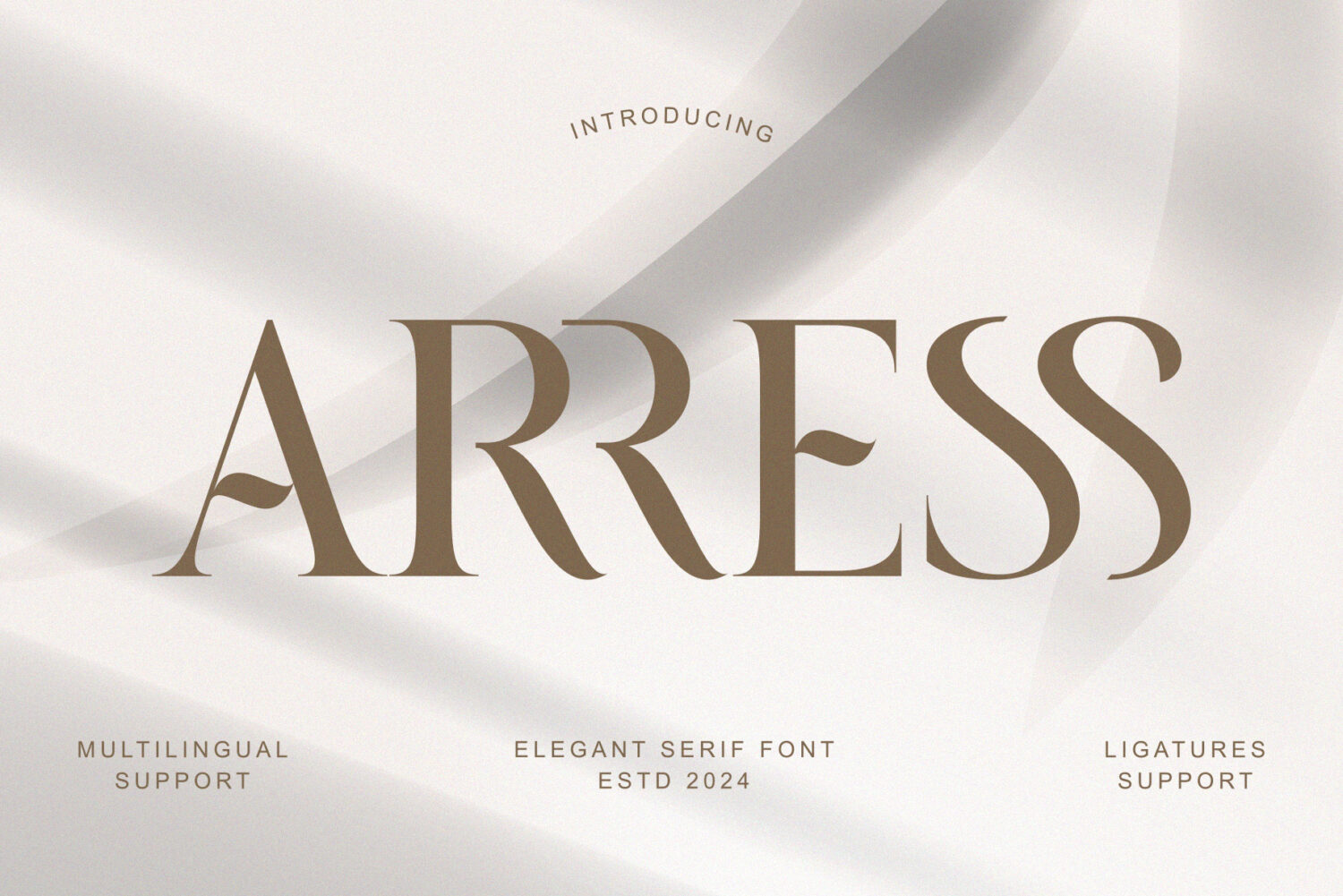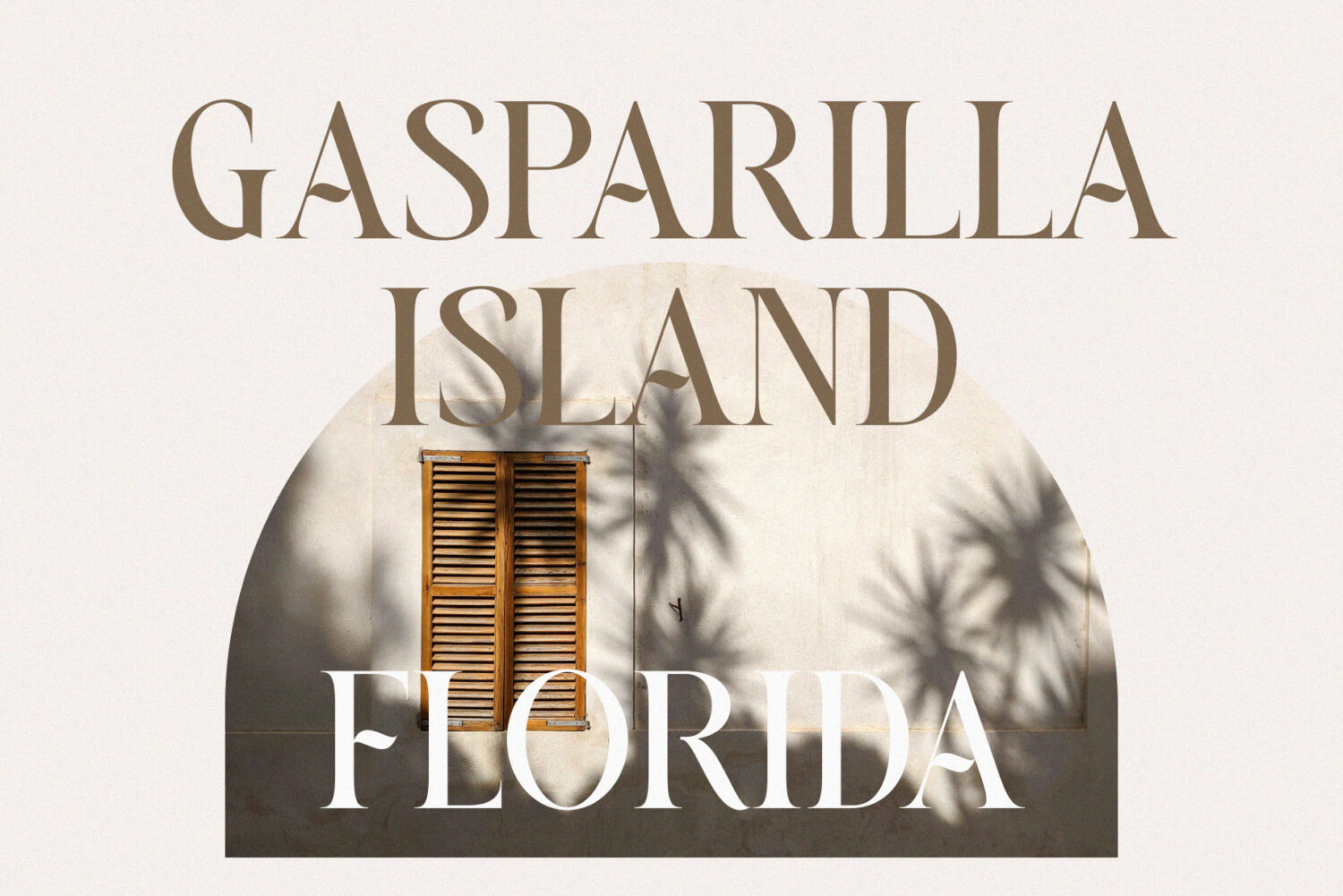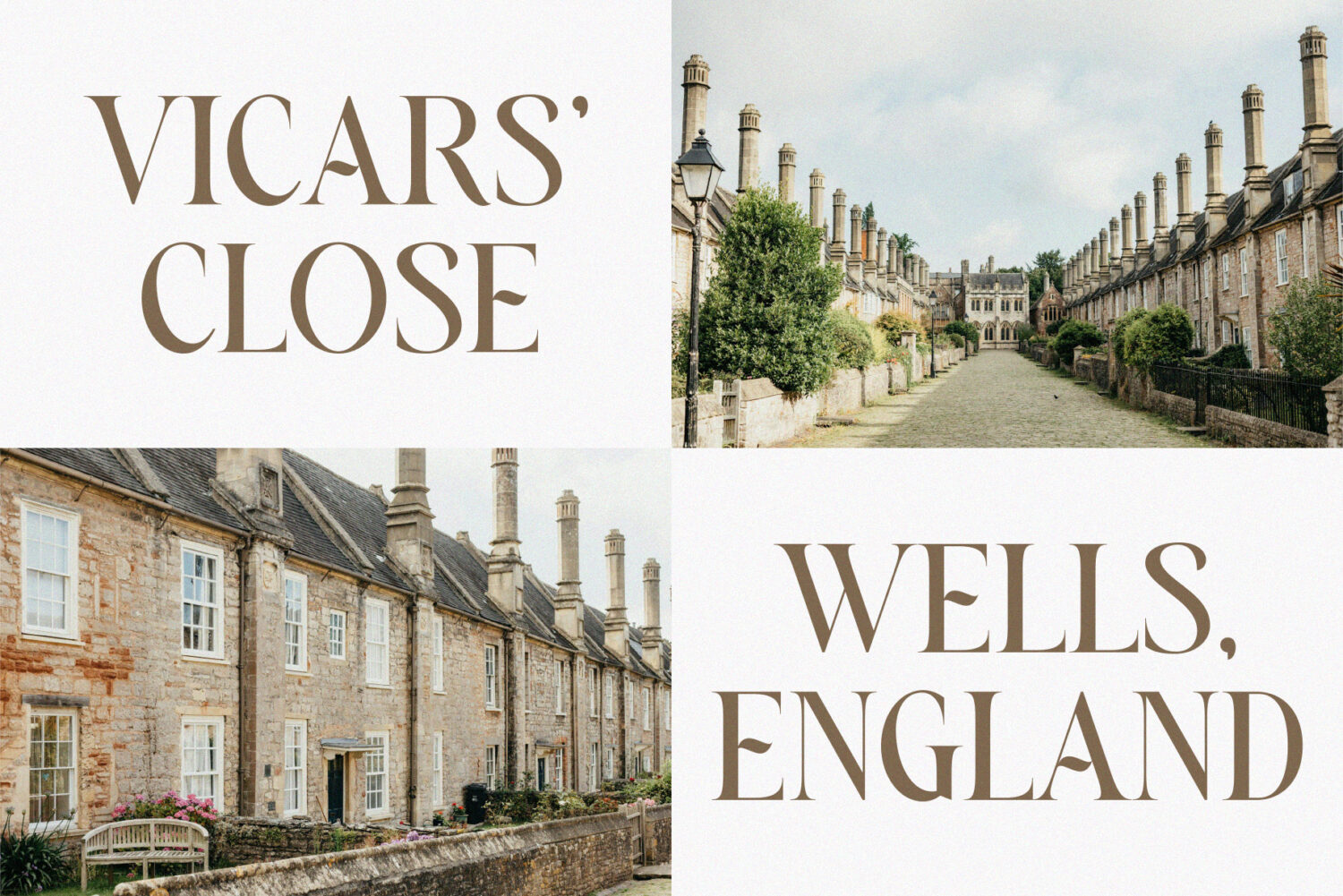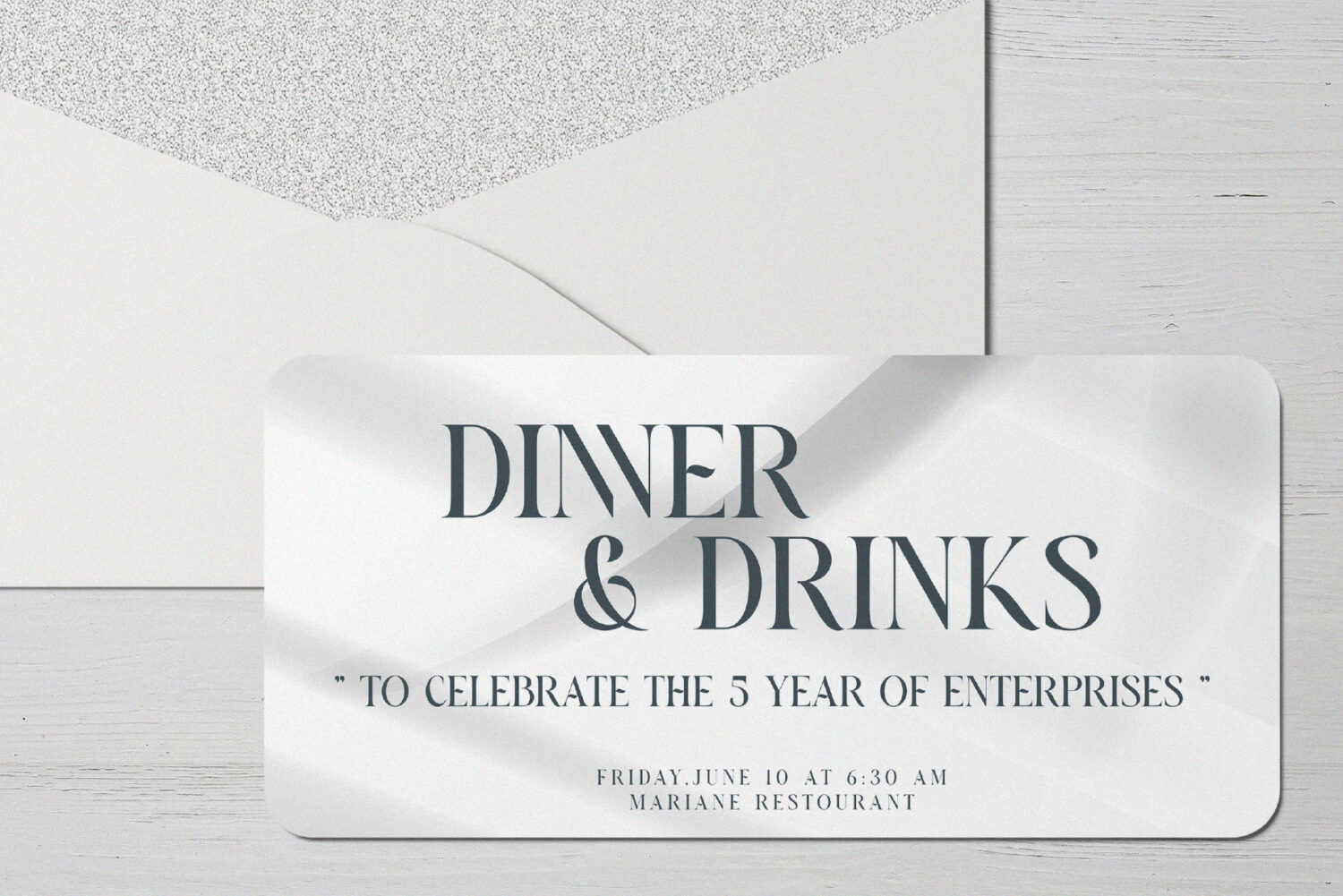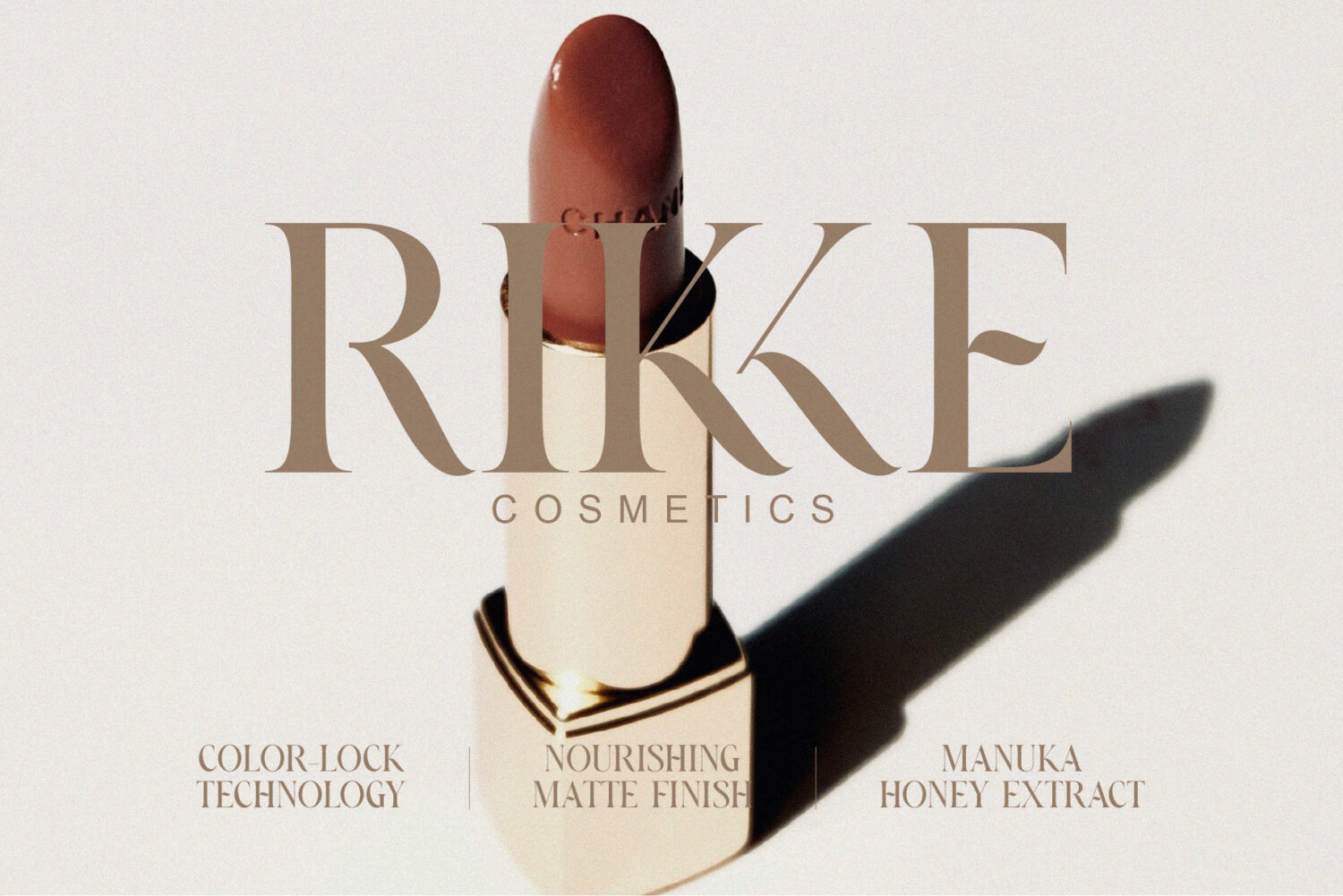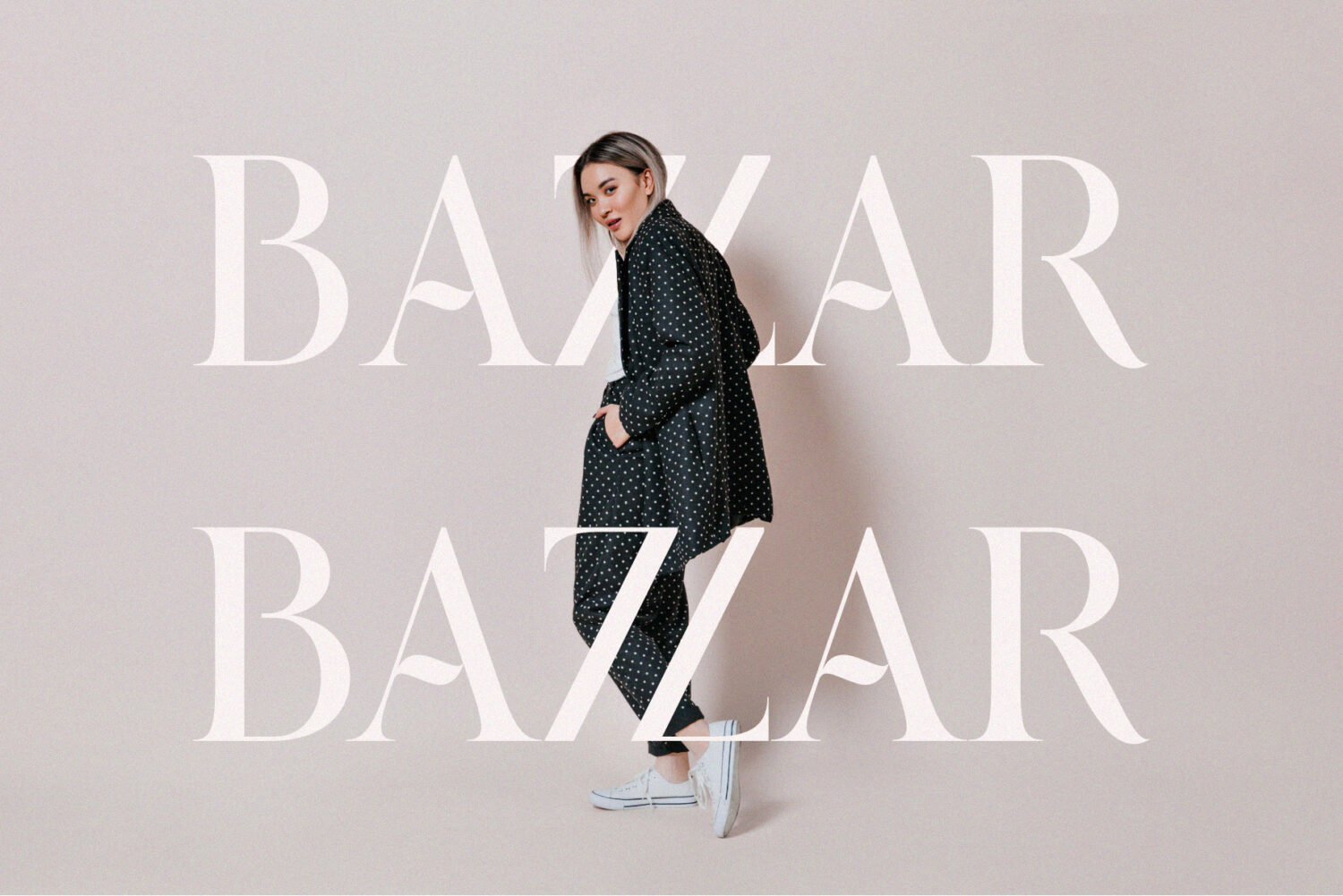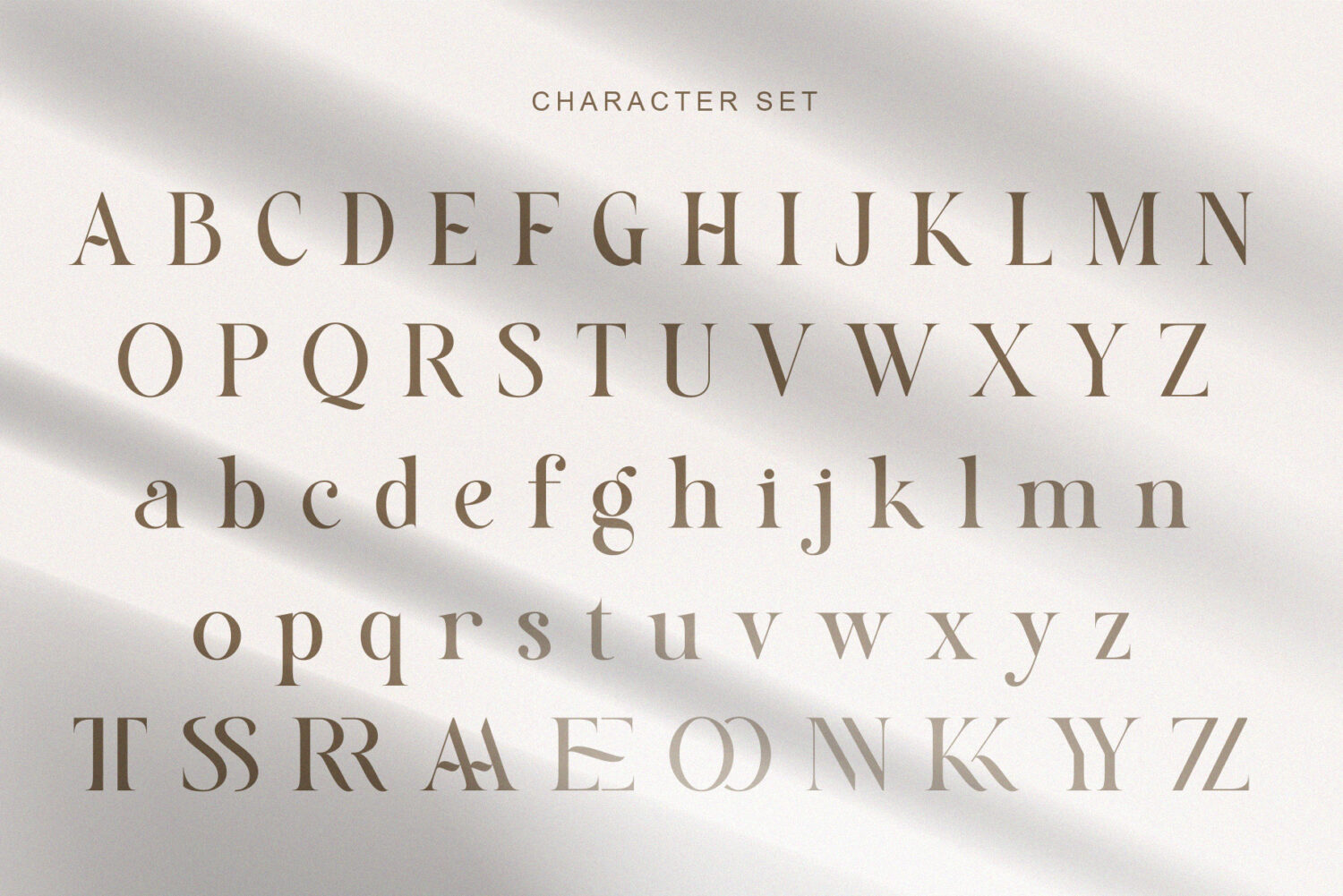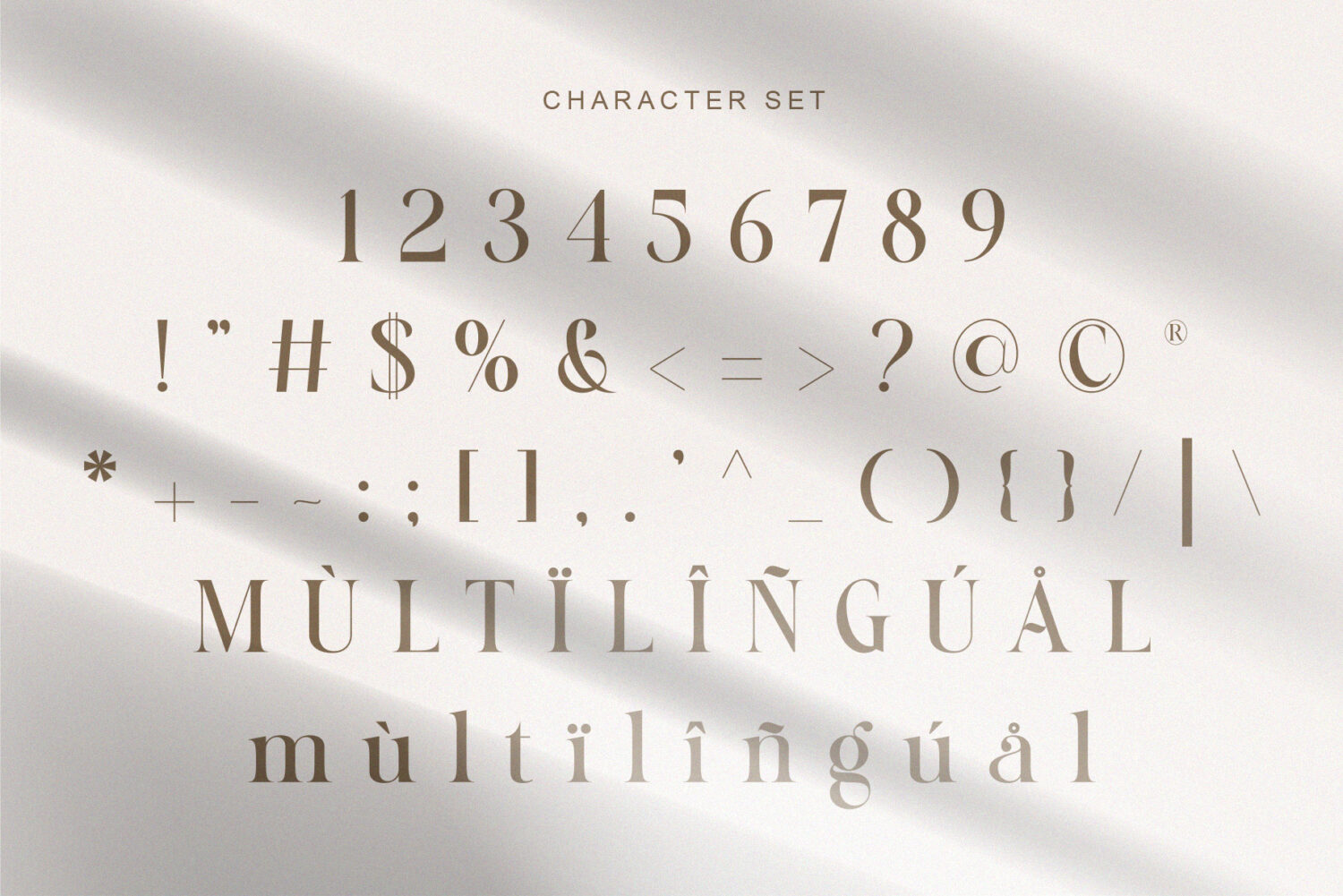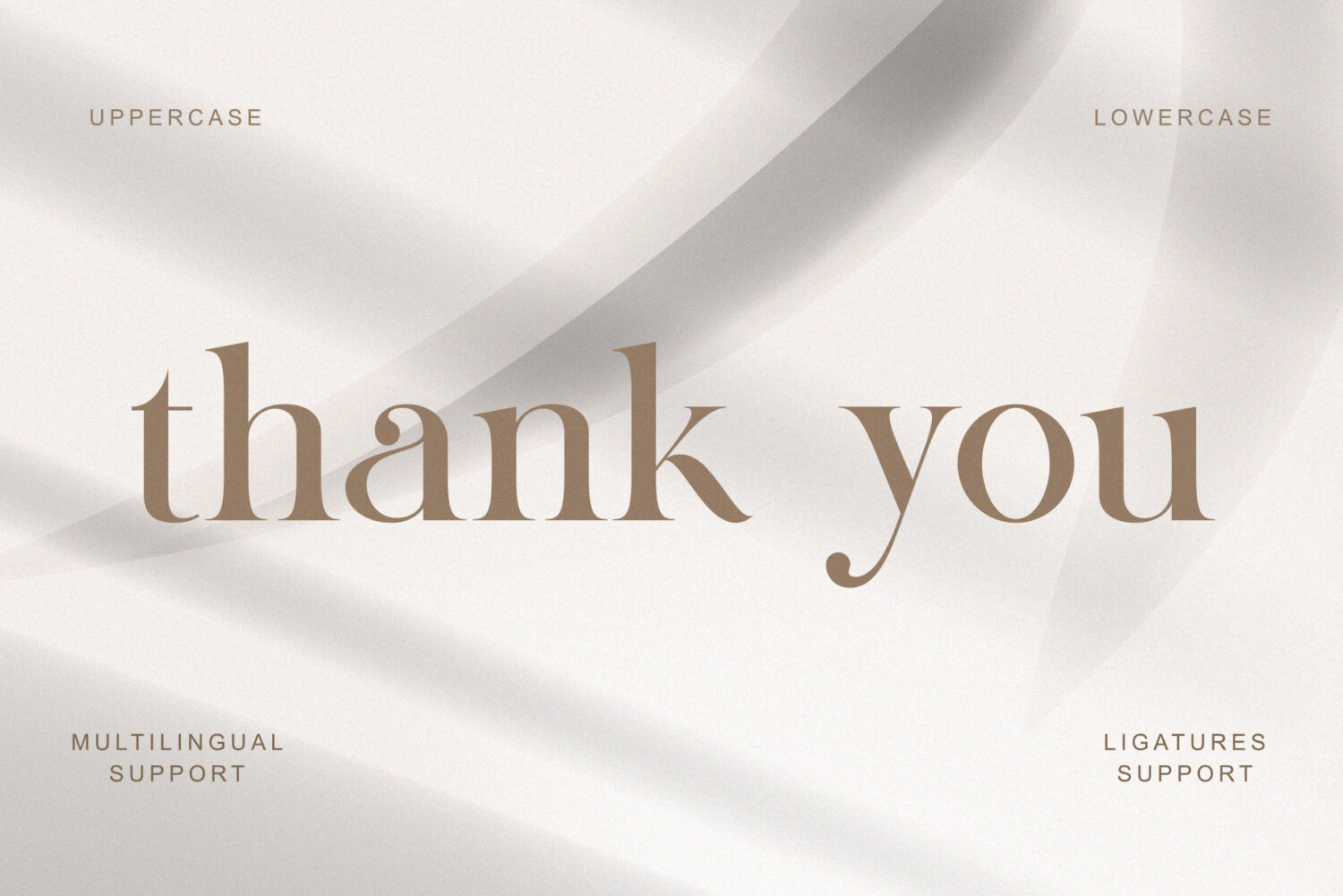
Arres is a modern font with a modern, minimalist style that conveys a professional, elegant, and playful feel. This font was created to help brands stand out and differentiate themselves.
With elegant, modern letterforms and a unique, clean, and classy touch, this font creates a more professional and premium design. Suitable for use in a variety of exceptional projects, this font is ideal for a variety of design needs.
* Uppercase & Lowercase
* Numerals & Punctuation
* Multilingual Support
## 🔥 Why Choose This Font?
* Clean & professional look
* Easy to read
* High-quality curves